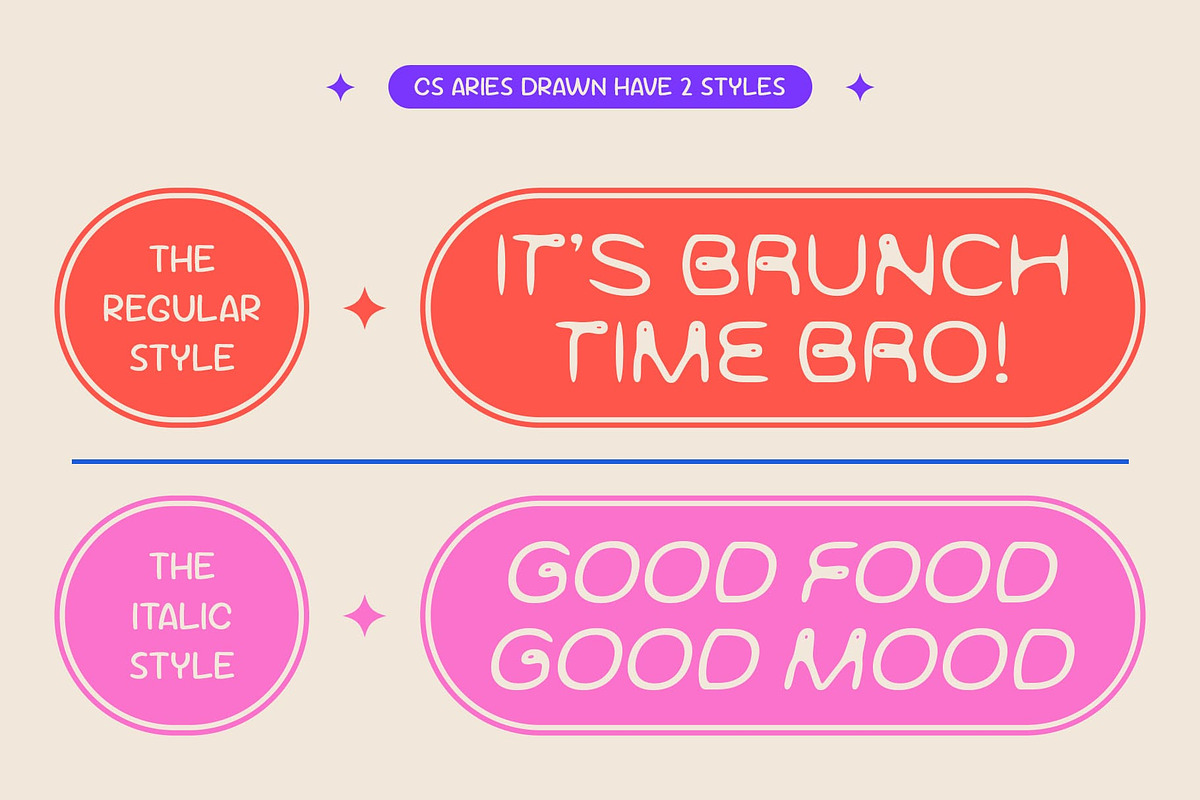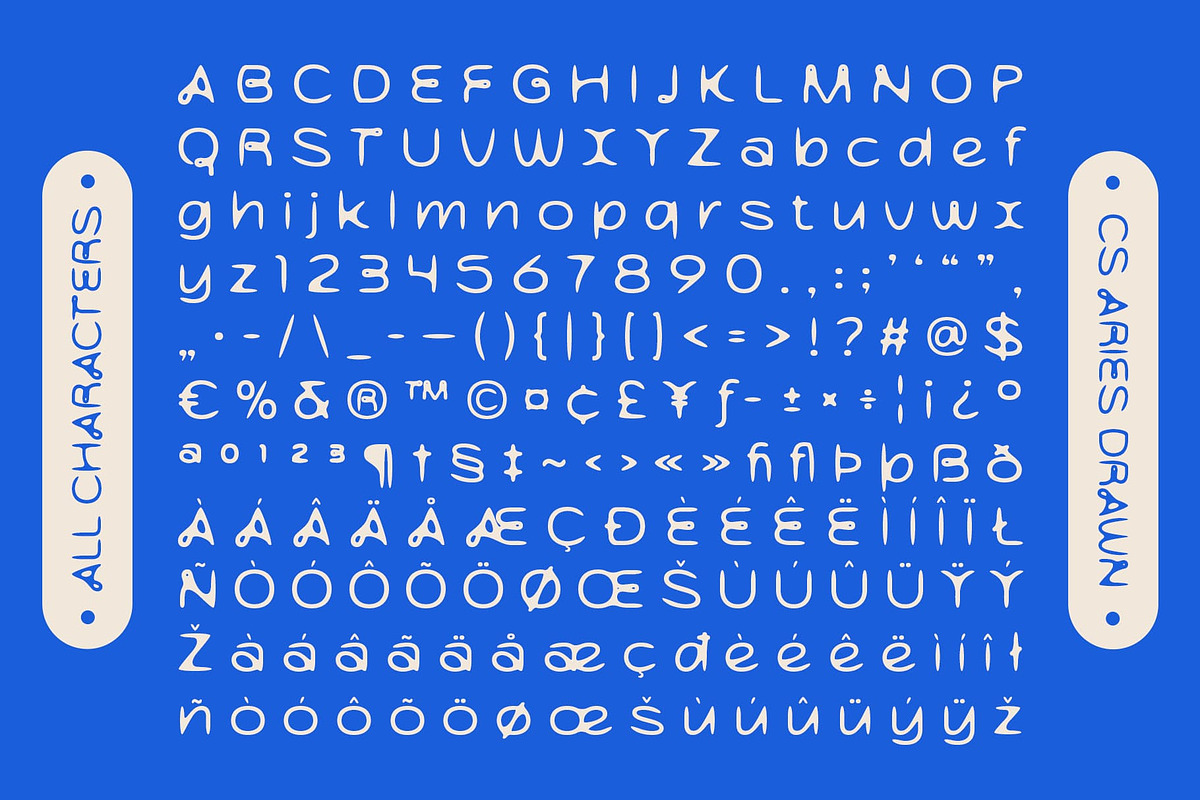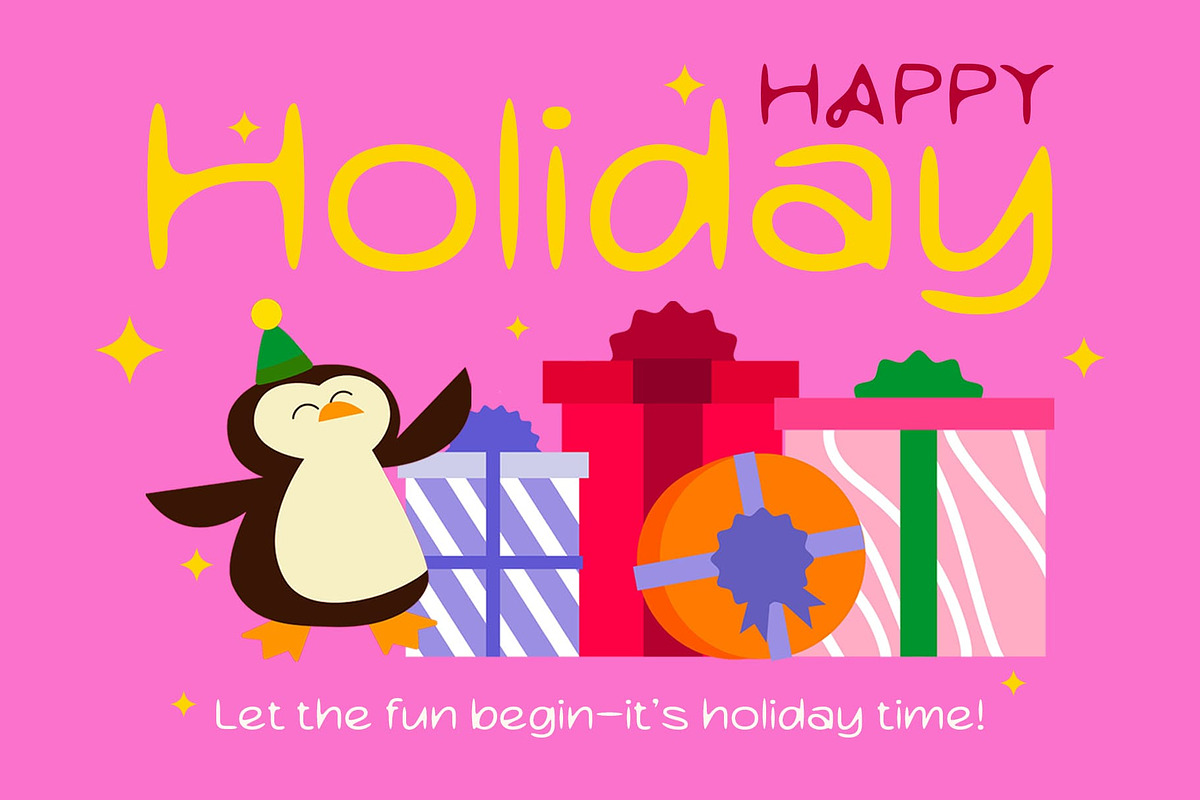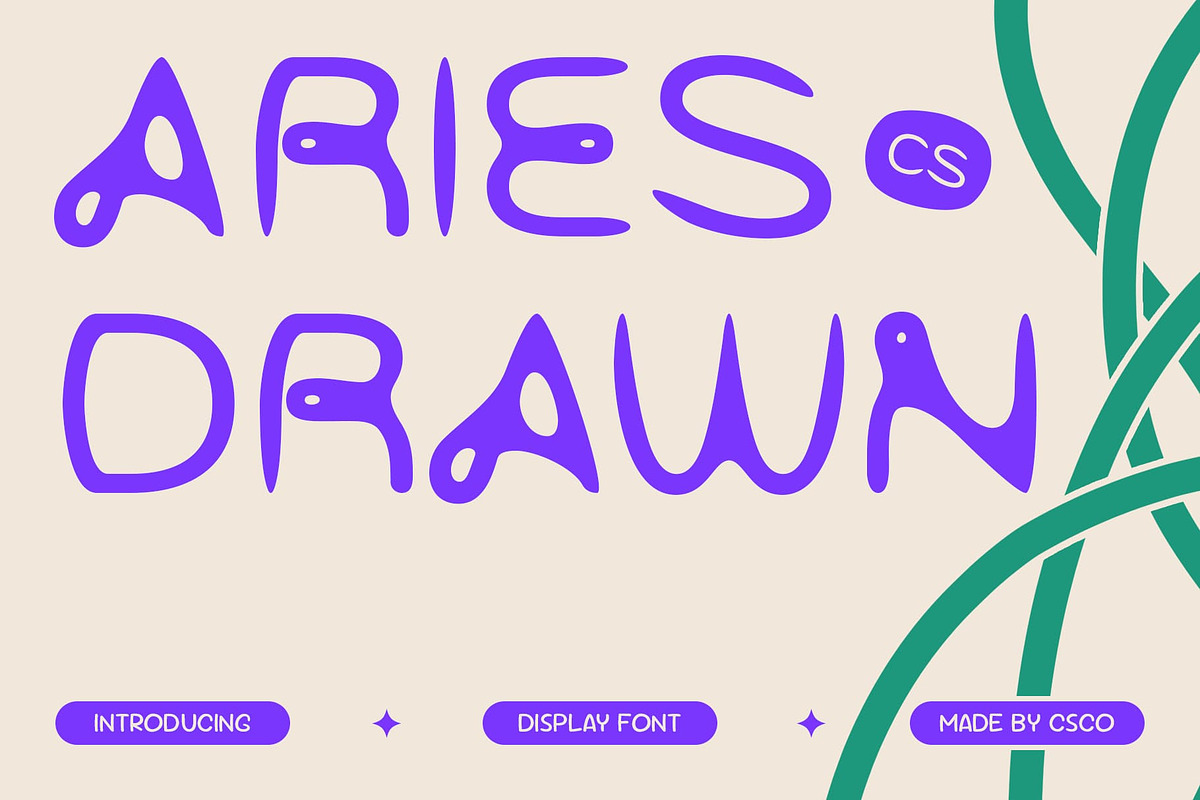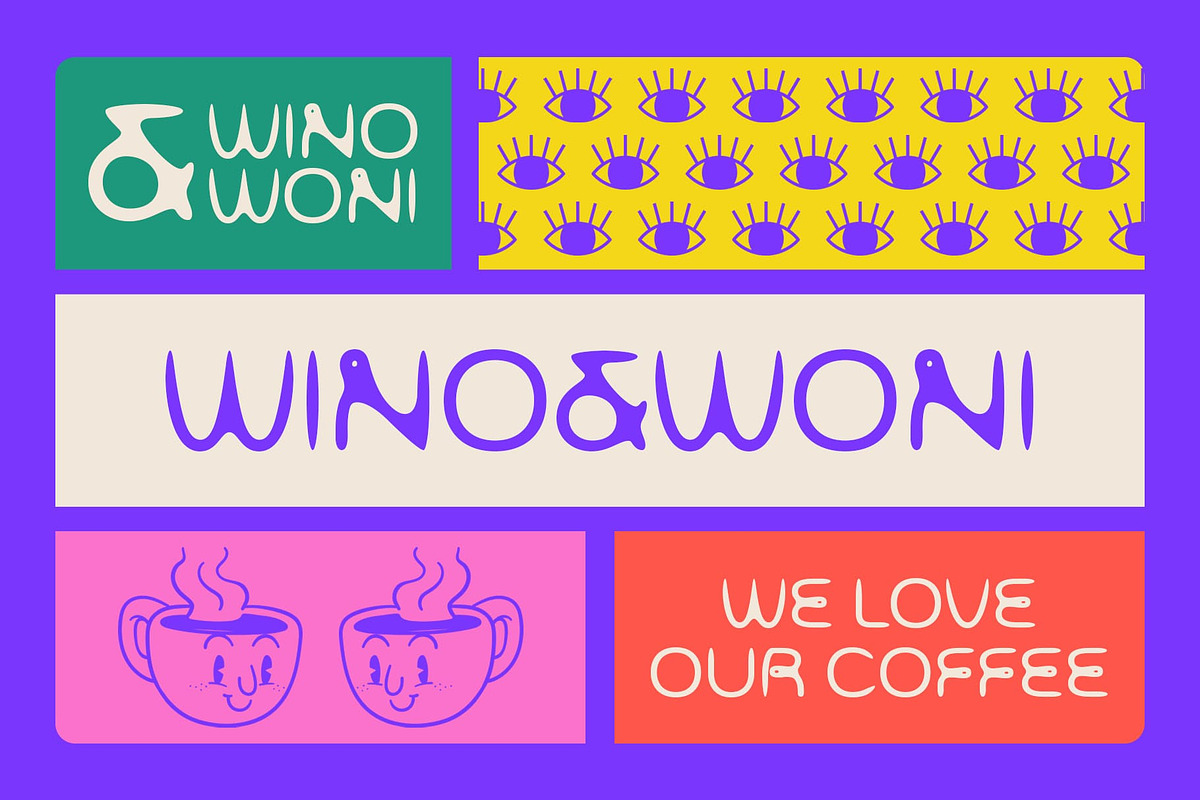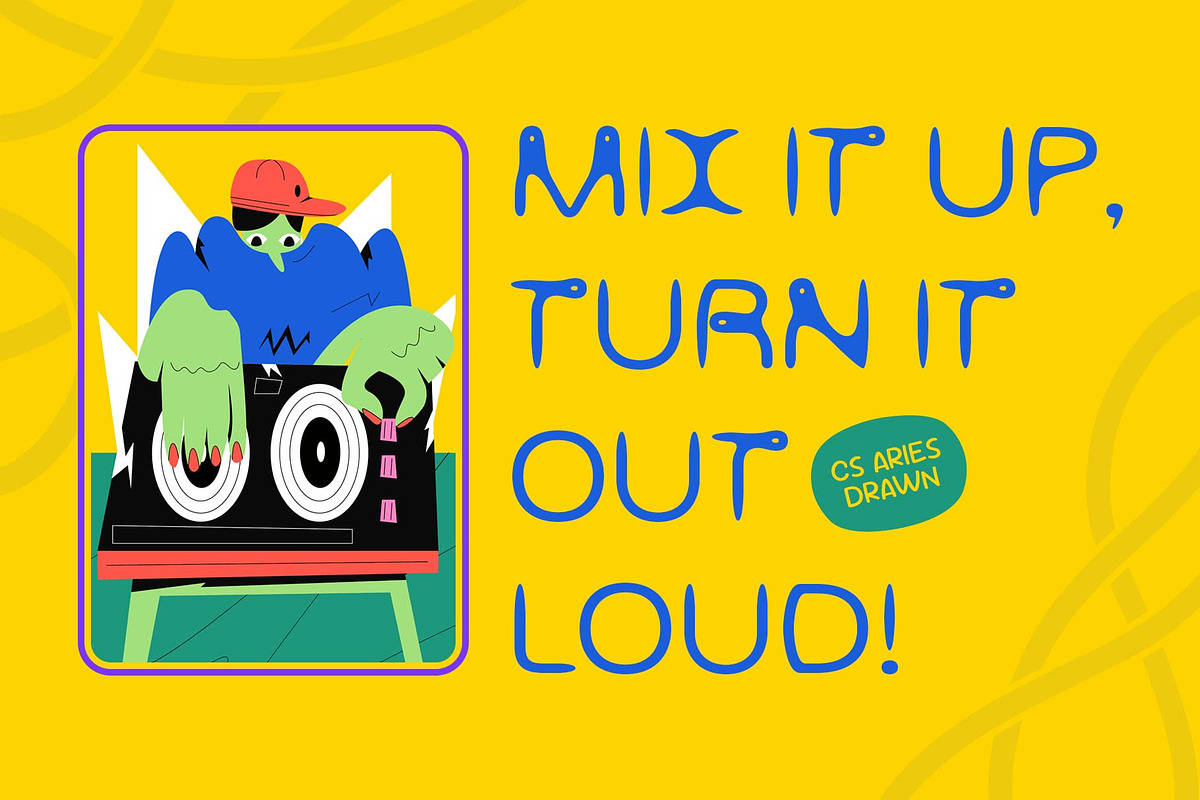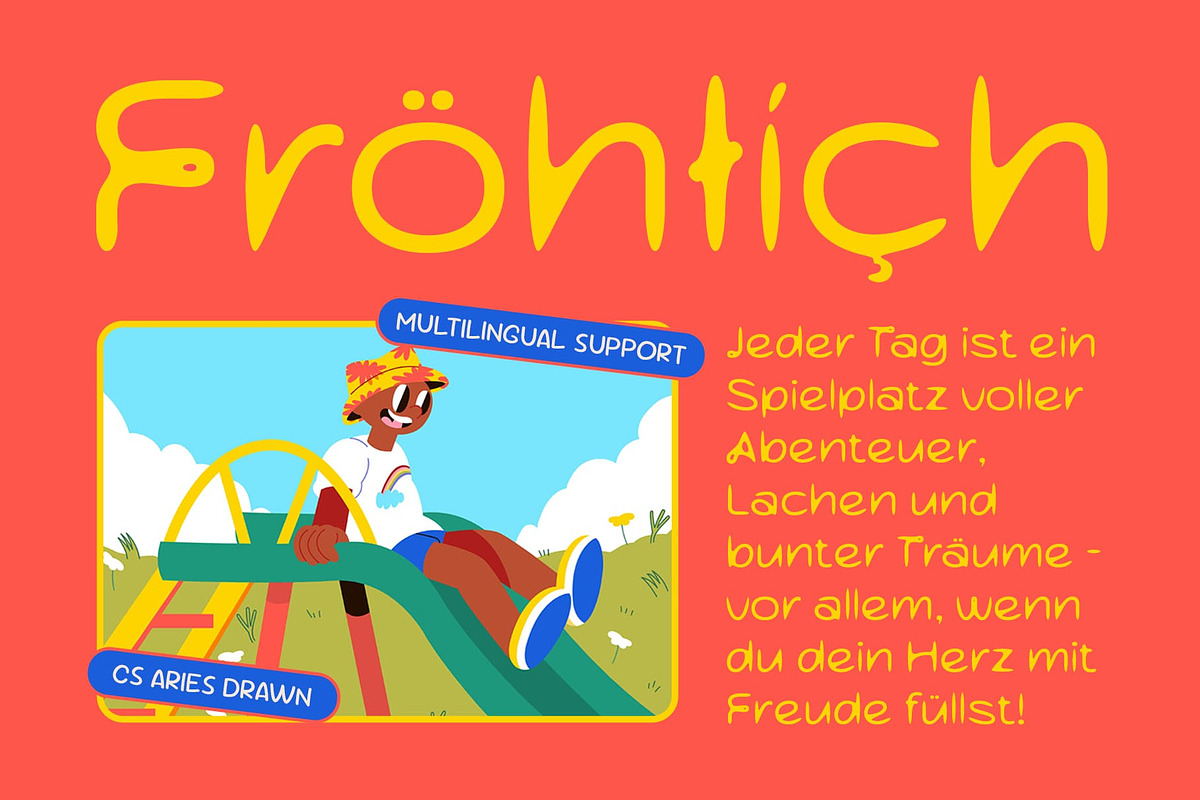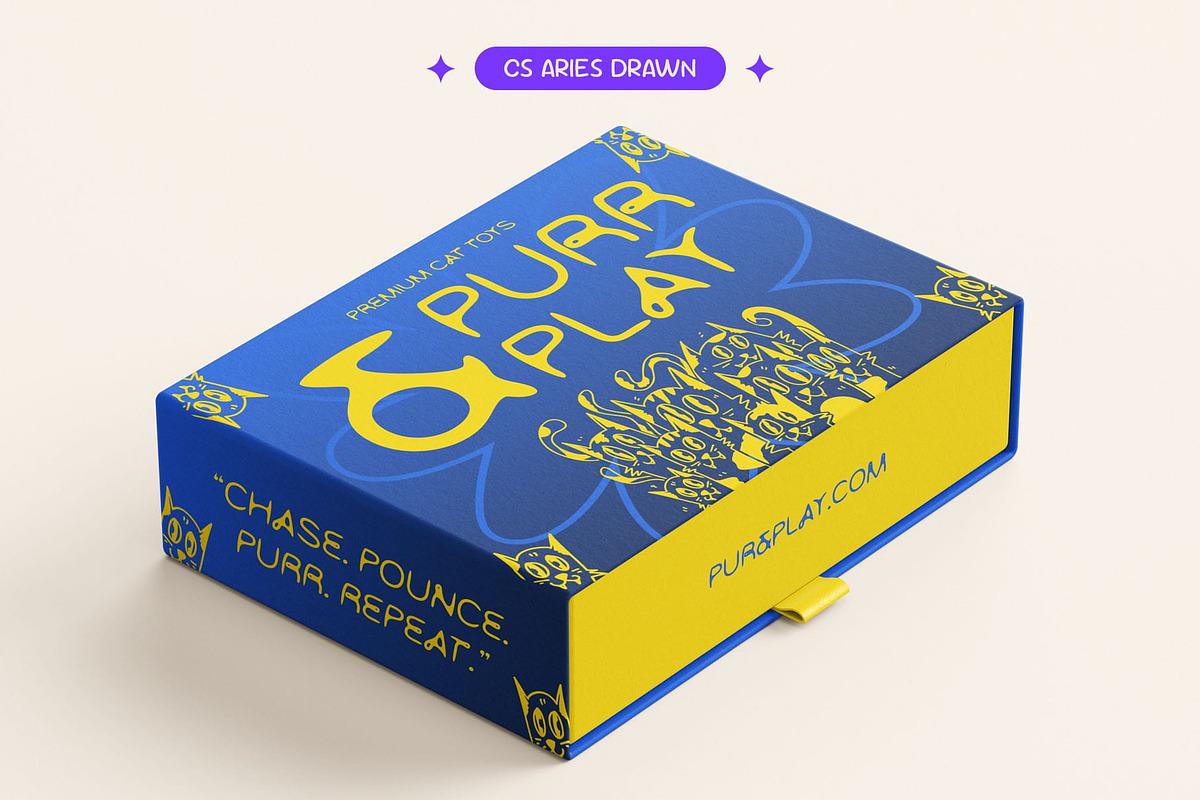
CS Aries Drawn
CS Aries Drawn – Where Soft Curves Meet Handcrafted Joy
Rounded Shapes for a Playful and Cute Feel This is a modern display sans serif font defined by its soft, rounded letterforms that bring out a cheerful and welcoming mood. Its curvy, bubbly structure adds a playful and approachable personality, making it perfect for projects that aim to convey joy, friendliness, and creativity.
Drawn Effect for Handcrafted Warmth The subtle drawn texture enhances its handcrafted aesthetic, giving the font a more personal and organic feel. This detail adds depth and uniqueness, making each character feel lovingly crafted and full of warmth—ideal for visual identities that value authenticity and artistic charm.
Funky Style with Expressive Character Balancing cuteness with a funky, energetic attitude, this creative font captures attention while keeping things light-hearted and fun. Its bold and expressive nature ensures that your message remains visually striking without losing its playful spirit.
Ideal for Children’s Designs, Creative Branding, and Joyful Posters Whether you’re designing for children’s books, educational toys, colorful posters, or fun and unique branding, this cute font delivers the perfect combination of charm, joy, and handcrafted appeal. It’s a great choice for projects that aim to stand out with positivity and imagination.